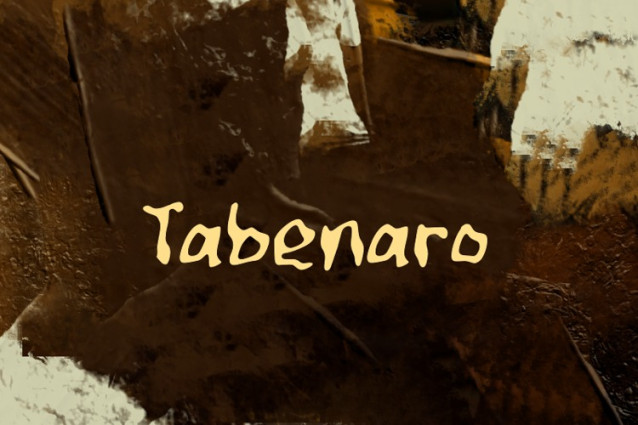
Tabenaro Font
Tabenaro Font, It would be a perfect choice to design posters, affiches, logos, t-shirt and magazine prints, eye-pleasing typographic designs and more.